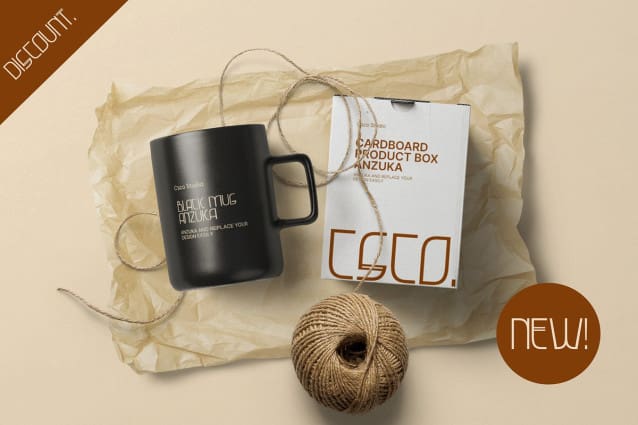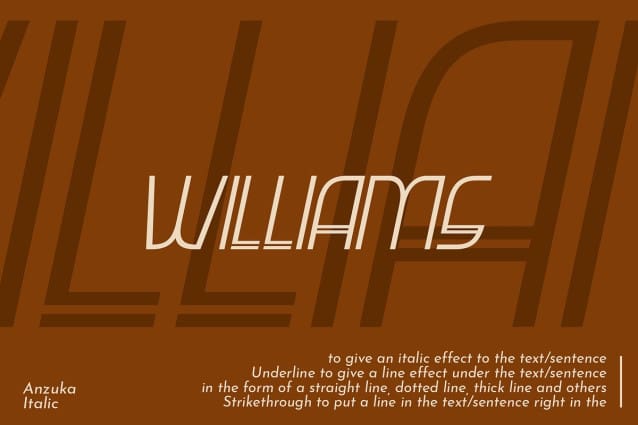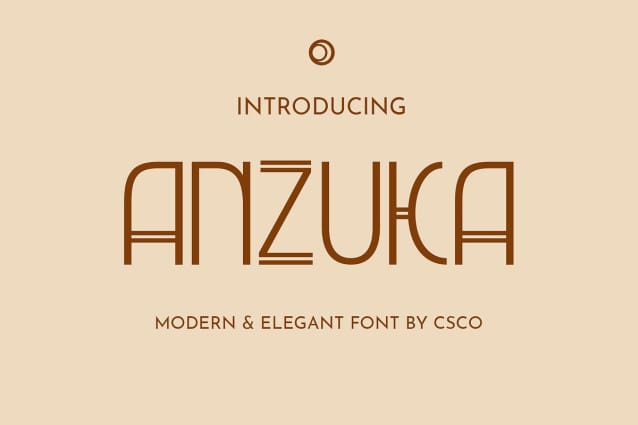
Anzuka Font
Anzuka Font, a testament to refined aesthetics, draws inspiration from the Art Deco era, transforming its timeless elegance into a contemporary masterpiece.
Modern Vibes, Classic Roots Incorporating modern sans serif vibes while retaining its classic roots, Anzuka seamlessly blends the best of both worlds, ensuring a font that stands the test of time.
Versatile Application Anzuka’s adaptability makes it ideal for a myriad of applications, from sleek corporate branding to chic editorial layouts, offering a touch of sophistication.
Visual Harmony and Precision Anzuka achieves visual harmony and precision, with each character meticulously crafted to exude modernity while paying homage to the allure of Art Deco.
Conclusion Anzuka Font redefines modern elegance. Dive into a world where classic meets contemporary, and elevate your designs with a font that transcends eras. Embrace the sophistication of Anzuka for a truly timeless typographic experience.